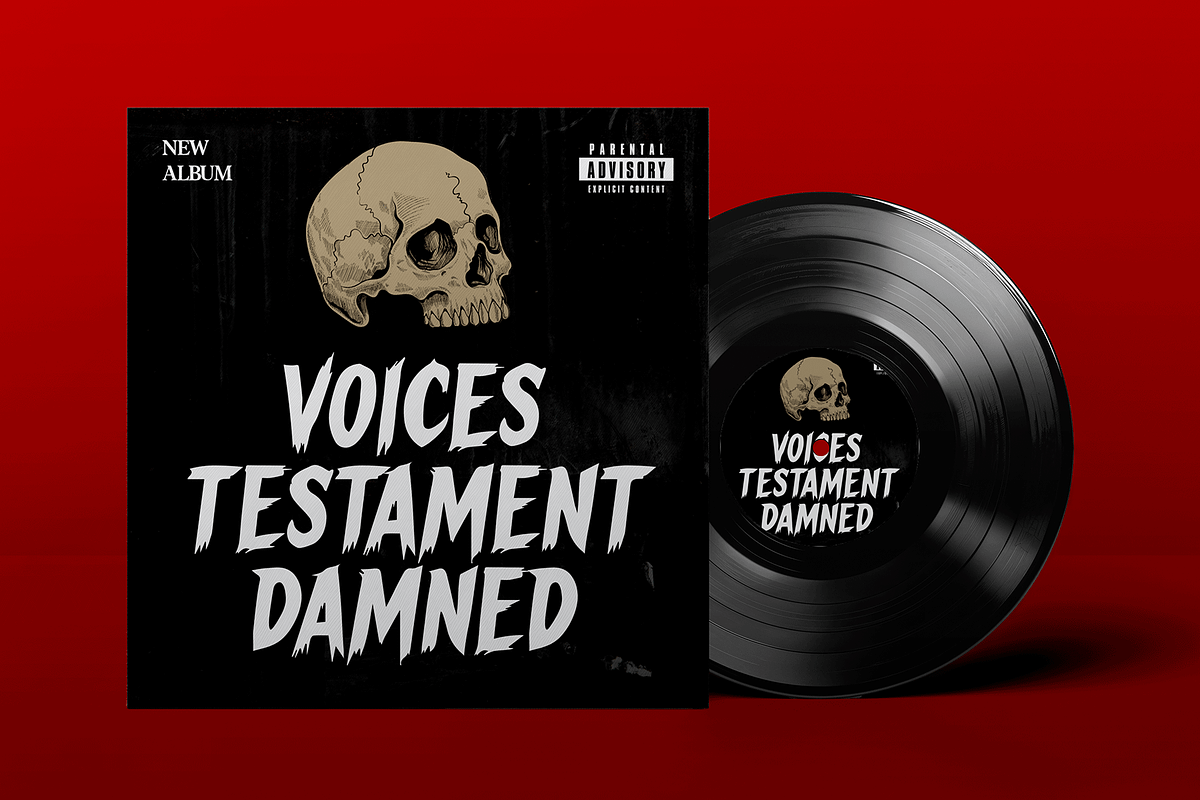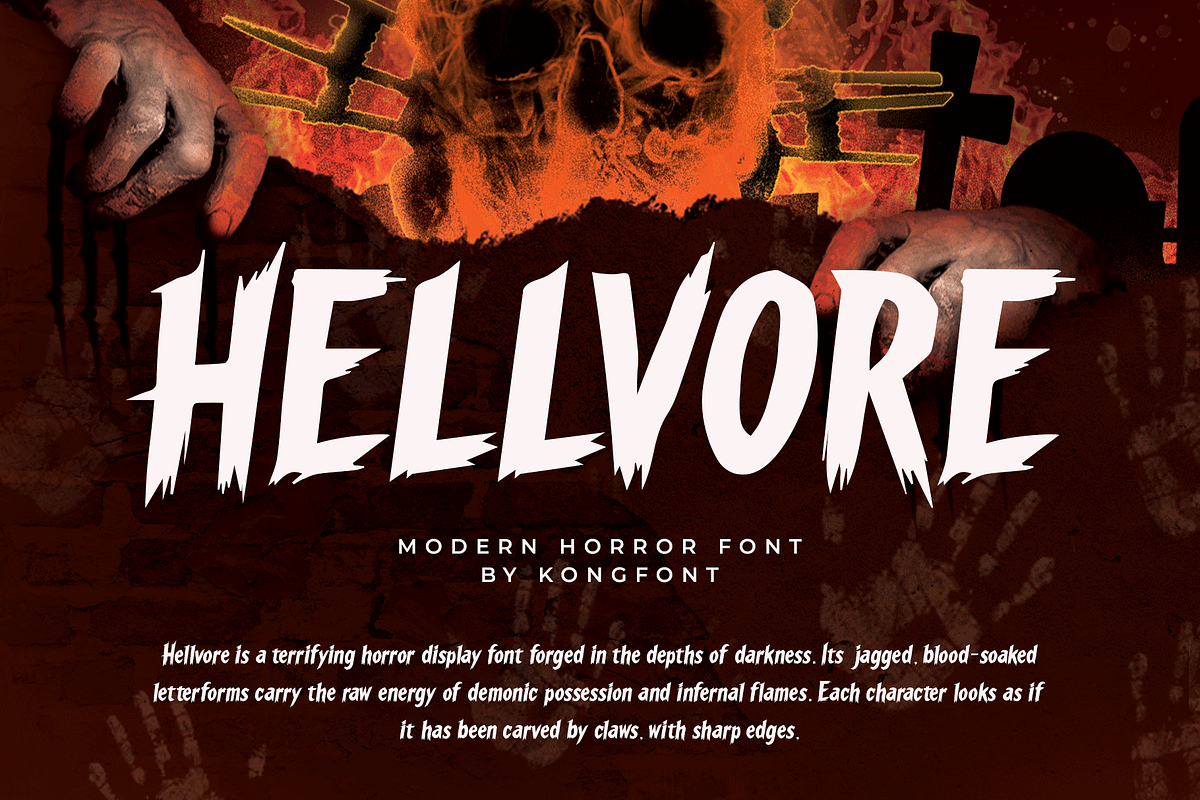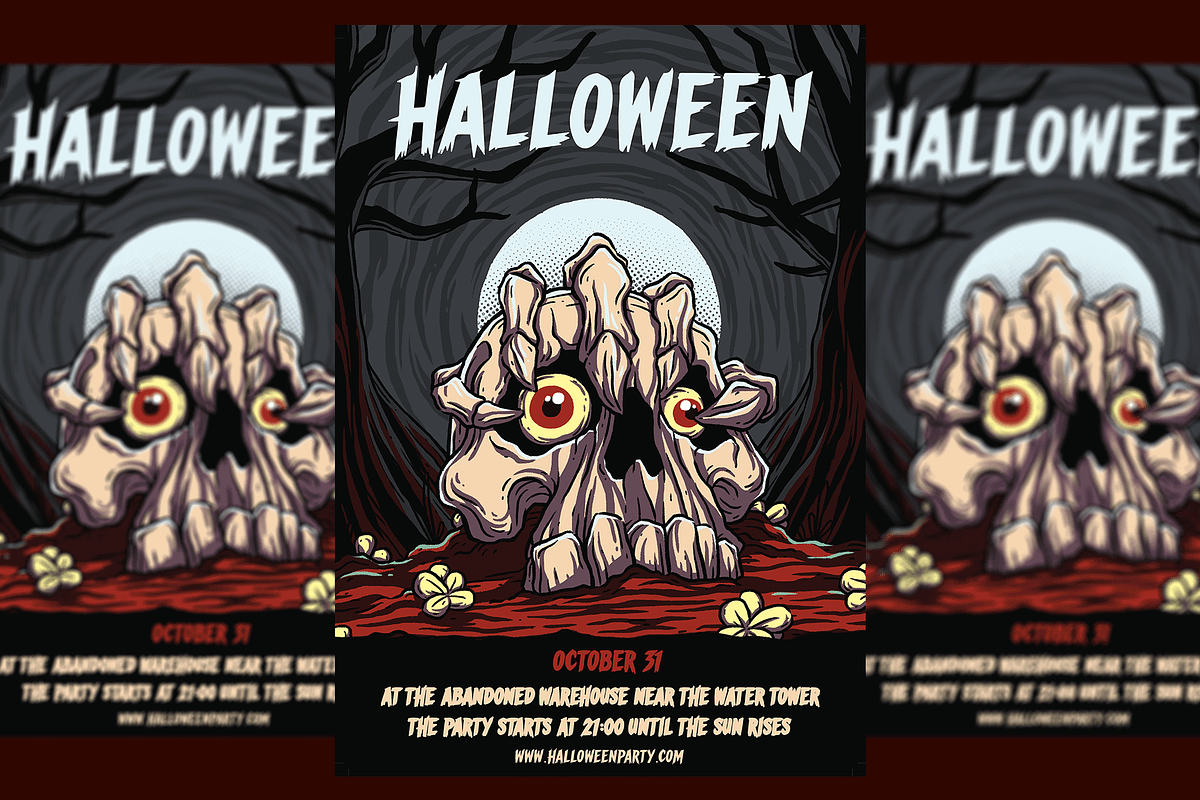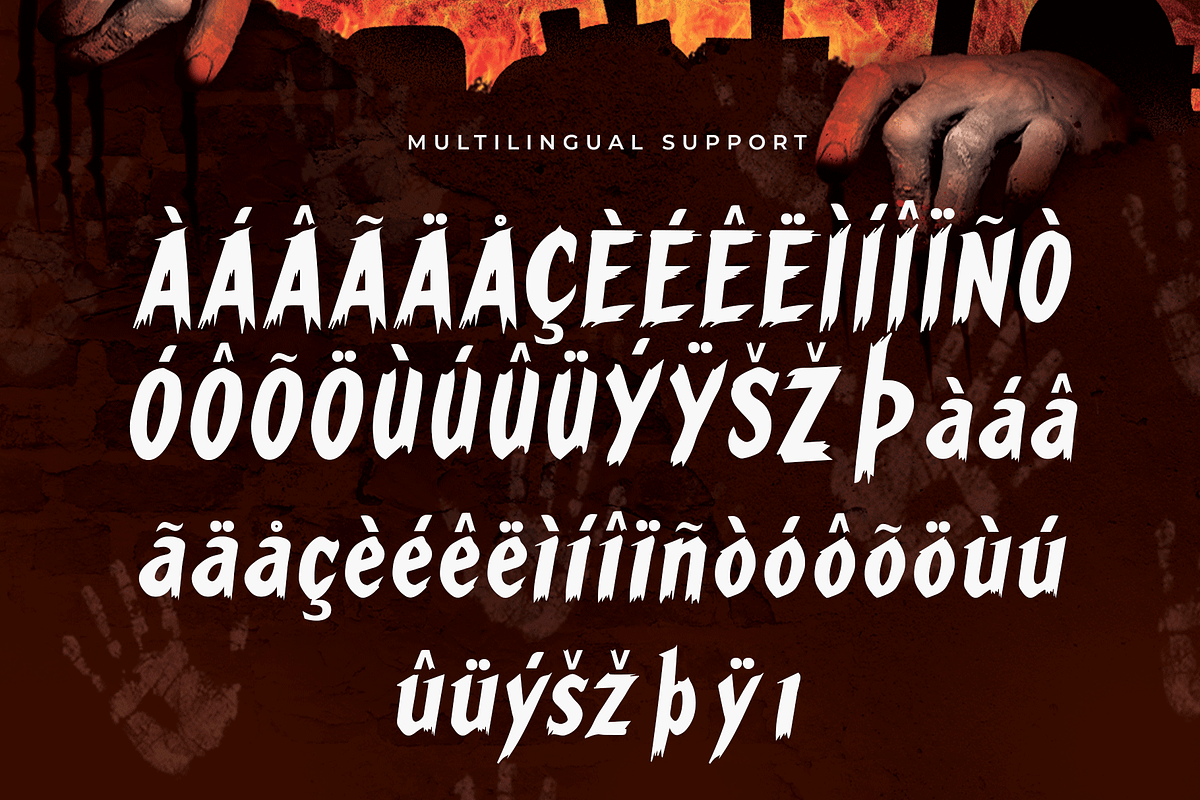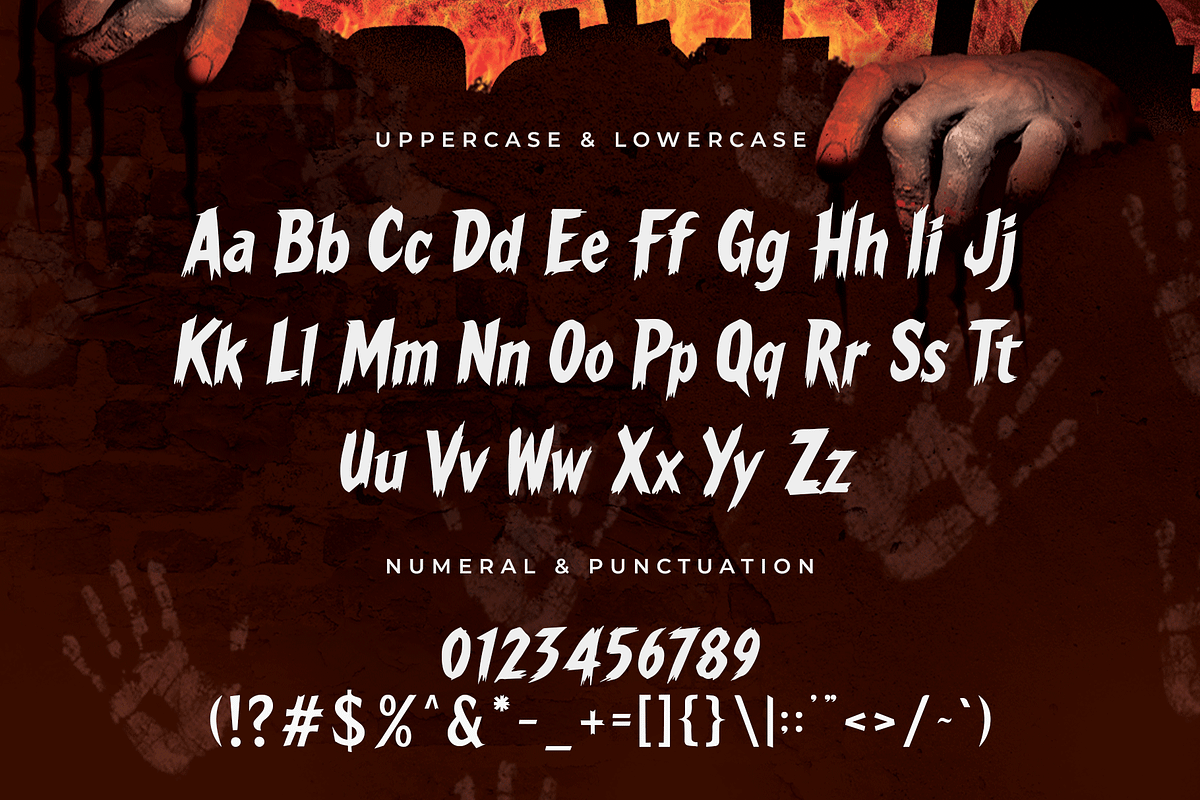
Hellvore – Modern Horror Font
Hellvore is a modern horror font designed to strike fear and fascination at the same time. With sharp edges, distorted details, and a bold dark style, this typeface captures the essence of horror while maintaining a contemporary look.
Perfect for horror movie posters, Halloween invitations, creepy logos, haunted house flyers, merchandise, and social media graphics, Hellvore brings a menacing and unforgettable impact to your projects.
It includes uppercase, lowercase, numbers, punctuation, and multilingual support, making it versatile for both digital and print designs. Whether you’re crafting eerie branding or spine-chilling titles, Hellvore sets the perfect haunted tone.